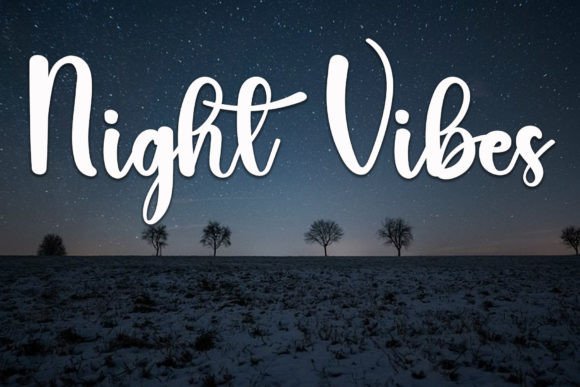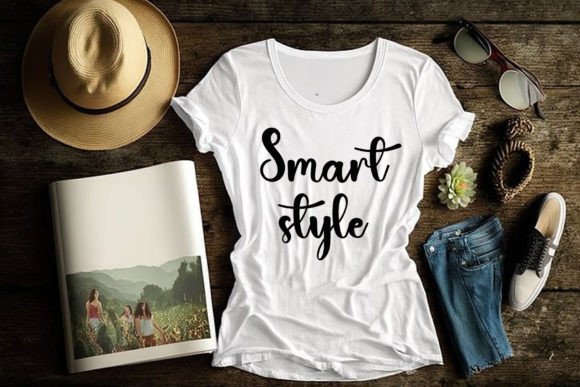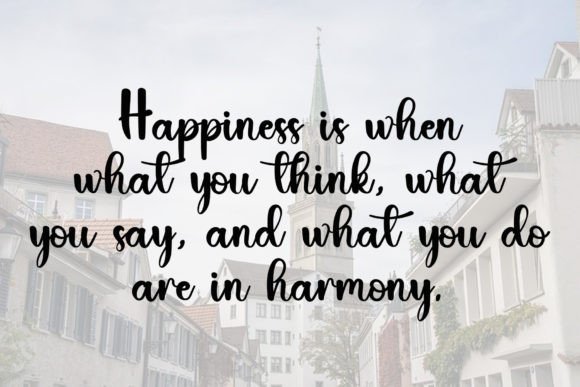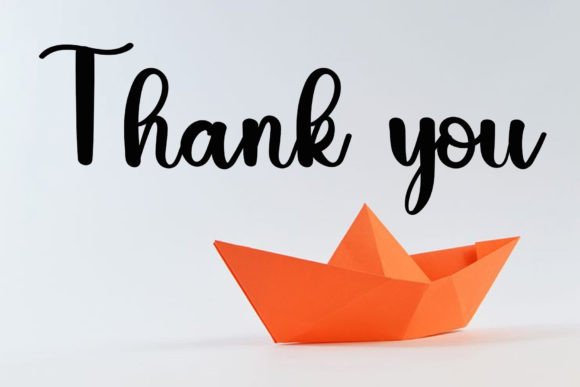
Birds Font: Elevate Your Designs with Elegance and Timelessness
Are you on the hunt for a font that adds a touch of sophistication and whimsy to your projects? Look no further than Birds Font, a stunning handwritten font that embodies elegance and timelessness. With its distinct style and versatility, Birds Font is perfect for designers and crafters seeking to create breathtaking designs that leave a lasting impression.
The Beauty of Birds Font
Birds Font is a meticulously crafted handwritten font that boasts an elegant touch, making it ideal for a wide range of projects. From creative branding and advertising materials to packaging, invitations, and more, this font is sure to captivate your audience with its unique charm. Its beautiful, flowing script is reminiscent of traditional calligraphy, yet has a modern twist that sets it apart from more traditional fonts.
Key Features of Birds Font
- Distinct and Timeless Style: Birds Font features an incredibly distinct and timeless style that will make your designs stand out from the crowd. Its elegant touch and flowing script create a sense of sophistication and refinement.
- Handwritten with Love: This font is carefully crafted with a personal touch, giving it a warm and inviting feel that’s perfect for designs that require a human touch.
- Versatile and Adaptable: Birds Font is incredibly versatile and can be used for a wide range of projects, from digital designs to print materials.
- Elegant and Refined: With its elegant touch and refined style, Birds Font is perfect for designs that require a level of sophistication and poise.
Birds Font is a dream come true for designers and crafters seeking to elevate their designs with a touch of elegance and whimsy. Whether you’re working on a branding project, creating social media graphics, or designing invitations and packaging, this font is sure to inspire your creativity and help you produce stunning designs.
Tips for Using Birds Font
- Pair it with Other Fonts: Birds Font pairs beautifully with other fonts, allowing you to create stunning font combinations that add depth and interest to your designs.
- Experiment with Colors: The elegant style of Birds Font lends itself well to a wide range of colors and textures. Experiment with different colors and textures to find the perfect combination for your design.
- Use it for Headings and Titles: Birds Font is perfect for headings and titles, where its elegant style and flowing script can really shine.
In conclusion, Birds Font is a beautiful and elegant handwritten font that’s perfect for designers and crafters seeking to elevate their designs with a touch of sophistication and whimsy. With its distinct style, versatility, and timeless charm, Birds Font is sure to become a staple in your font collection. So why wait? Fall in love with Birds Font and use it to create spectacular designs that leave a lasting impression!